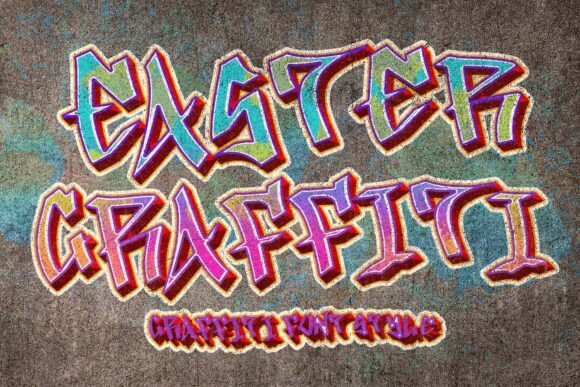
For designers seeking to infuse their work with a touch of elegance and whimsy, the Easter Graffiti Font is a game-changer. This versatile font is perfect for a wide range of applications, from stickers and posters to branding and logo design. With its unique blend of style and sophistication, the Easter Graffiti Font is a valuable addition to any designer’s toolkit, offering a fresh perspective on traditional design elements.
Easter Graffiti Font Key Features
- Unique Characteristics: The Easter Graffiti Font features a unique, hand-drawn style with intricate details and textures, giving it a one-of-a-kind look that’s perfect for adding a touch of whimsy to designs.
- Font Style: The font is available in both regular and bold weights, allowing designers to choose the level of emphasis they need for their text.
Easter Graffiti Font Review
I recently had the chance to work with the Easter Graffiti Font, and I must say it’s a unique and playful addition to any design project.
- ✨ The font is highly customizable, allowing users to adjust the size, color, and spacing to fit their design needs.
- ✨ The Easter Graffiti Font is perfect for creating eye-catching headlines and titles, adding a pop of color and whimsy to any design.
- ✨ The font is easy to read, even at smaller sizes, making it a great choice for body text or captions.
- ⚠️ The font may not be suitable for formal or professional projects, as its playful and casual nature may not be in line with the tone of more serious designs.
- ⚠️ The font can be quite busy, with a lot of texture and visual interest, which may make it difficult to use in designs with a lot of other elements.
The Easter Graffiti Font is a fun and creative addition to any design project. While it may not be suitable for all projects, it’s a great choice for designs that need a playful and eye-catching touch. With its high level of customization and easy readability, I would definitely recommend giving it a try.
The Easter Graffiti Font is ideal for:
Creating Easter-themed invitations and party decorations.
Designing Easter egg-inspired graphics and illustrations.
Adding a playful touch to Easter-themed social media posts and ads.
Creating custom Easter-themed merchandise, such as t-shirts and stickers.